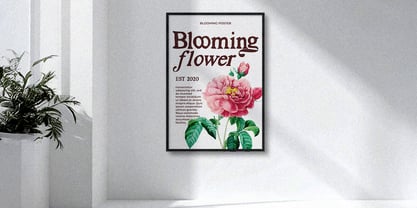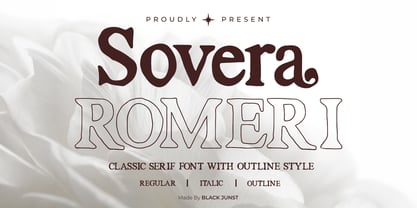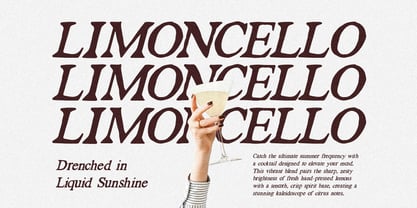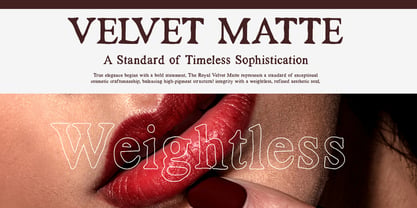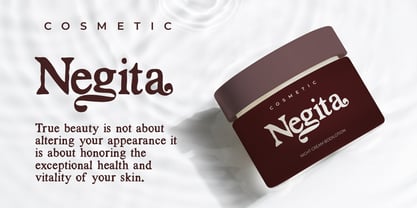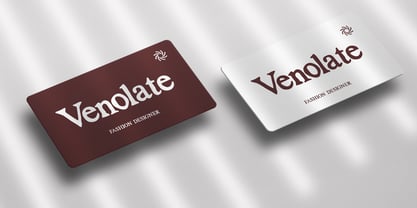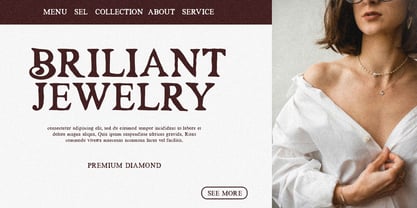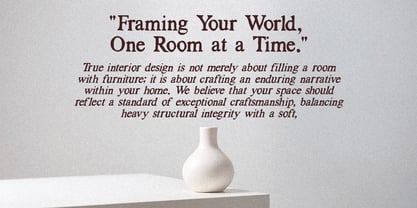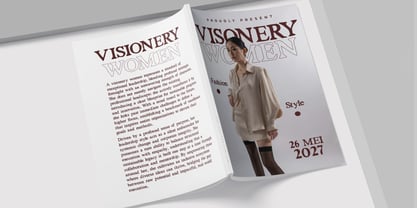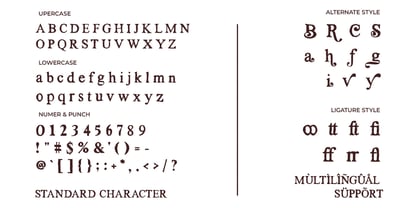
Sovera Romeri
Die Schriftfamilie Sovera Romeri wurde von Maulana Semar entworfen und von Black Junst veröffentlicht. Sovera Romeri enthält 3 Stile und Familienpaketoptionen. Mehr über diese Familie
Sovera Romeri is a sophisticated serif typeface family that blends classic elegance with modern luxury. Designed with carefully crafted curves, high readability, and refined proportions, it is an ideal choice for premium branding, editorial design, packaging, fashion labels, and luxury marketing.
The family includes Regular, Italic, and Outline styles, giving designers the flexibility to build striking typographic compositions, layered effects, and distinctive visual identities.
Inspired by timeless editorial typography and vintage European aesthetics, Sovera Romeri offers a graceful balance between tradition and contemporary design. The elegant details and stylish personality make it suitable for logos, magazine headlines, wedding stationery, cosmetic packaging, boutique branding, and upscale product presentations.